Typographic Vernacular
Exploring the cultural, typographic feedback loop of Waikīkī Adapted from a series of presentations on the design process of Pau Hana
When I begin a self-initiated project, I like to take a few ideas, push them together, and follow the thread wherever it leads. As I was finishing the Type@Cooper Extended program, three goals shaped my next project. I wanted to design something rooted in my personal experience, I wanted the family to include a heavy black weight, and filtering through the Type@Cooper program, the typeface would follow a translation contrast model suited for body text.
These three aims converged in a font family I eventually named Pau Hana. At its core, Pau Hana is a type family with translation contrast, proportioned for continuous reading, but layered with influence from Waikīkī’s visual vernacular. In designing it, I wanted to see how local visual culture could be distilled and looped back as design inspiration. To help frame this mix of formal and cultural cues, I also looked to the spirit of Wes Wilson, whose poster lettering became a touchstone for approaching the heavier weights.
Waikiki Vernacular
I had been following the production process of Name Sans by ArrowType. It is a typeface that grew from the lettering of New York’s subway mosaics. The idea resonated with me: to look at the typography of your environment and treat it as raw material for design. For Pau Hana, that environment was Waikīkī.
Waikīkī has its own lettering vernacular, shaped by decades of signage. Hawaii tourism left a residue of custom lettering everywhere. Each apartment complex, hotel, or business used a style popular of that time that leaned into flared strokes, and letterforms with an aversion to rigid straight lines. The result is a casual, dynamic tone that seems to capture the lure of the place itself.
I’d noticed a few of these signs on my own, but discovering the #signsofhawaii tag on Instagram revealed how widespread the aesthetic still was. Around the same time, I was gifted a copy of Mark Jonathan Davis’s Fonts in Paradise, which deepened my awareness of this distinct aesthetic. Both experiences sparked a habit of type-hunting every time I went through town.
Waikīkī’s growth took off after World War II, fueled by statehood and the accessibility of air travel. The boom years produced signage that matched the architecture and design trends of the time, developing in parallel with the rise of surf culture. Both drew from similar visual vocabularies, curves, flowing strokes, and relaxed geometry, and together they formed a lasting coastal aesthetic. As those styles evolved elsewhere, Waikīkī remained. Whether because the district was already built out or because nostalgia held sway, the mold was cast.
Over the decades, this aesthetic fed itself: new businesses echoing old signs, designers borrowing from a familiar visual language. That cycle of culture shaping form and form reinforcing culture is the feedback loop I wanted Pau Hana to join.
As I explored signage, I noticed a few consistent principles: emphasis on curves, flaring strokes, and energetic movement. These qualities became my guide for shaping Pau Hana’s forms.
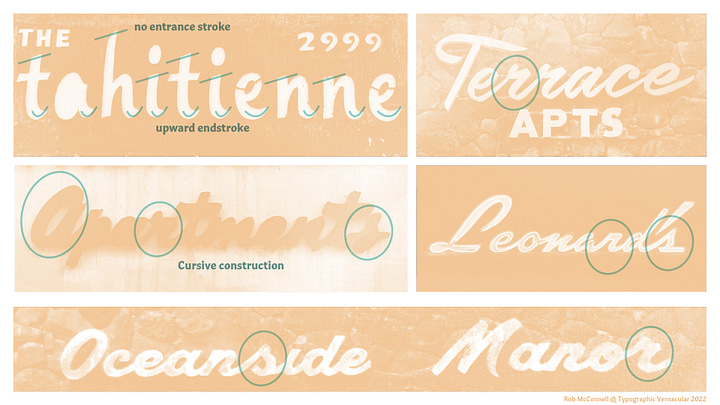
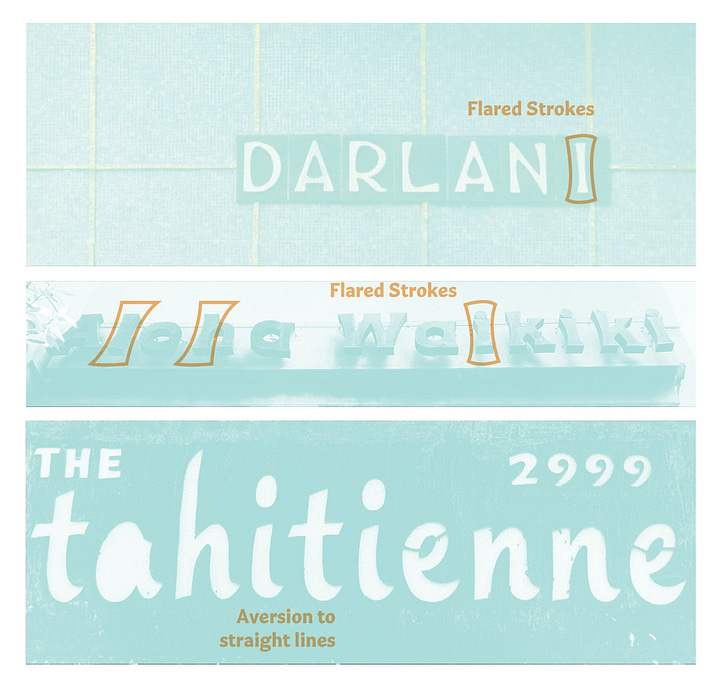
When it came to the italic, I turned back to Waikīkī signage. A sign for the tahitienne really stood out for me. It is an italic built without entrance strokes, instead relying on strong upward end strokes to create a good rhythm.
Most italics fall between a 4–14° slant, but the signs I studied leaned much further, often 24–36°. For Pau Hana I settled on an 18° slant: enough to reference the vernacular but still moderate enough for legibility in text. Structurally, the italic blends a single-stroke cursive feel with a few true cursive alternates built in as options. This gives Pau Hana a distinct italic while maintaining legibility.
WWWWD?
From the beginning I knew Pau Hana needed a heavy black weight. Once I committed to the idea of avoiding straight lines, I sought precedents that could embody that energy. No example felt more fitting than the poster lettering of Wes Wilson.
Wilson’s work is iconic precisely because it was hand-lettered, not mechanized. His letters are filled with organic curves, tightly packed counters, and warped proportions. During undergrad I often heard the phrase “Good artists copy, Great artists steal.” On the surface Pau Hana is not a direct copy of Wes Wilson’s work. Instead of imitation, I tried to adopt his frame of mind. What would Wes Wilson do if he were tasked with drawing a heavy weight for a modern type family?
In Pau Hana’s black styles I began by squeezing the counters as small as possible, pushing the outer contours into rounded, swelling curves. As the design matured, I opened the counters slightly and tempered the curves to maintain readability while keeping the exuberant spirit intact.
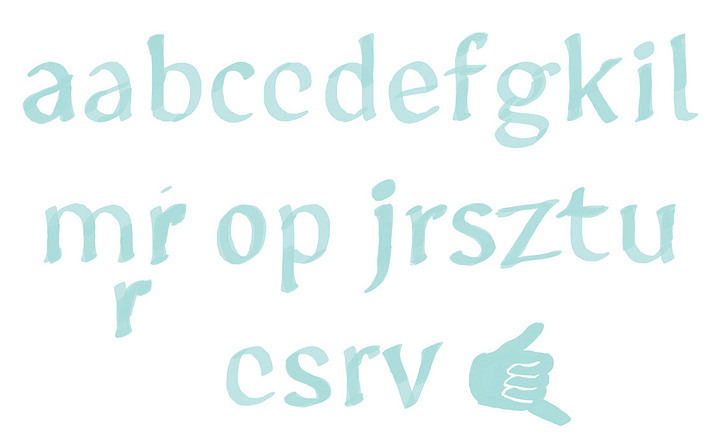
As Pau Hana developed, I found myself in the role of editor, deciding how far to push the energy and where to pull back for legibility. Counters were inflated just enough to prevent letters from collapsing at small sizes. Curves were refined so entrance and exit strokes could connect more smoothly. The heavy weight was tuned to sit in harmony with the regular.